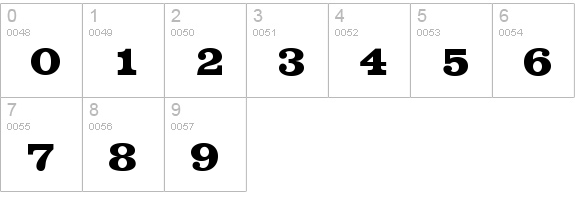
VoltaEF-Bold is a strong, high-contrast variant in the VoltaEF typeface family \xE2\x80\x94 well suited to headlines, attention-grabbing titles, and strong calls-to-action.
VoltaEF-Bold is a stunning and versatile font that exudes confidence and power. Its bold and strong letterforms make a bold statement while maintaining a sense of elegance and sophistication. This font is perfect for headlines, logos, and any design project that requires a strong typographic presence. What sets VoltaEF-Bold apart is not just its exceptional design, but also the fact that it is available for free. Yes, you read that right – this remarkable font can be downloaded for free at FontsMarket.com. With its incredible generosity, VoltaEF-Bold allows designers, creatives, and enthusiasts alike to access its stunning features without any cost. With its wide range of characters, VoltaEF-Bold offers endless possibilities for creative expression. Whether you're designing a poster, a website, or a branding project, this font will effortlessly elevate your work to new heights. Its bold and commanding presence demands attention and ensures that your message will be conveyed with impact. The clean and precise lines of VoltaEF-Bold provide exceptional legibility, making it perfect for both print and digital applications. The carefully crafted letterforms ensure that each character stands out with prominence, adding a touch of professionalism and flair to your designs. With its timeless appeal and contemporary charm, VoltaEF-Bold is a font that will never go out of style. Its versatility allows it to adapt to various design styles, making it a go-to choice for both classic and modern projects. Whether you're aiming for a sleek and minimalistic look or a bold and expressive design, this font will effortlessly complement your vision. In conclusion, VoltaEF-Bold is not just a font, but a powerful tool for enhancing your designs. And the best part is that it is freely available to download at FontsMarket.com. So why wait? Discover the endless possibilities that VoltaEF-Bold offers and unlock your creative potential today.